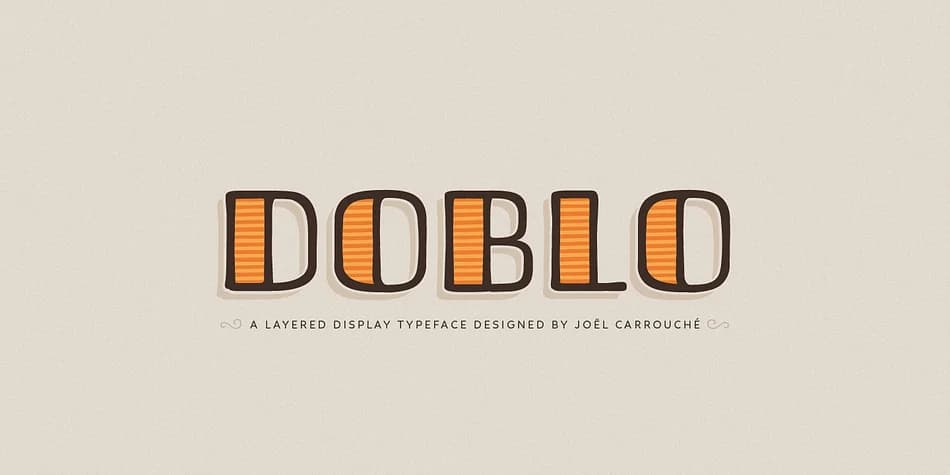
DOBLO by JCfonts is a decorative layered typeface built around retro visual energy and designed for bold, colorful display work. Instead of a static single-layer font, it starts with one master character and builds out eight distinct overlay layers plus a collection of ornamental accents. This means you can stack and combine them in multiple ways to create genuinely unique results. The structure works beautifully for vintage cosmetics packaging, retro concert posters, greeting card collections, album cover art, and DIY craft stickers where dimensional color and texture actually matter.
The font ships in OpenType format with full diacritic support for Western and Central European languages, so international clients and polyglot projects won't hit language barriers. Each of the eight layers operates independently, which gives you real flexibility in how you build your design. You're not locked into one predetermined look; instead, you can mix and match the layers to match your specific project's aesthetic. Some designers will stack all eight together for maximum impact, others might skip layers or swap them for a different vibe. That kind of granular control is rare in display fonts.
DOBLO Font is a decorative font that shines as a display or heading face. Pair it with a clean sans-serif or serif font for body text β the contrast creates a clear hierarchy while the two styles stay balanced and easy to read.